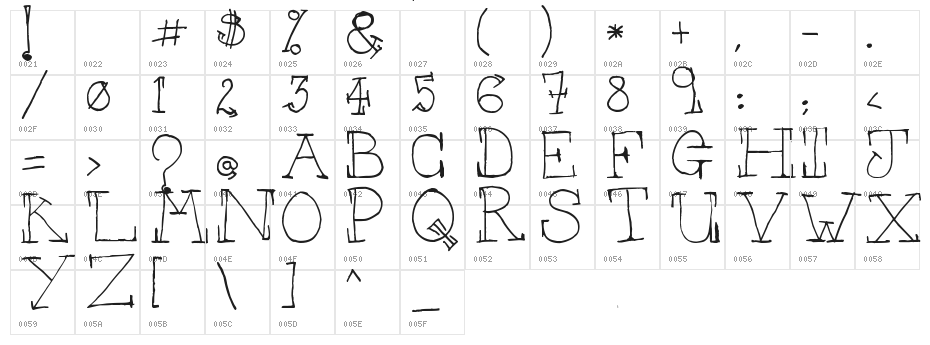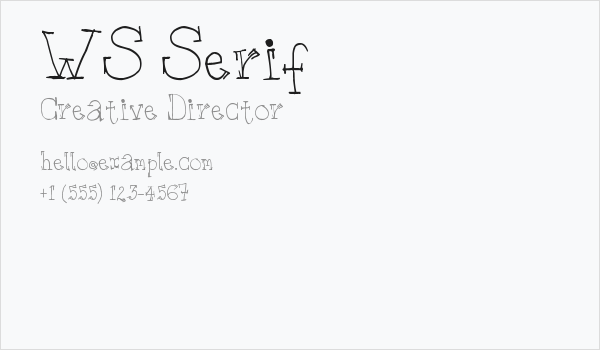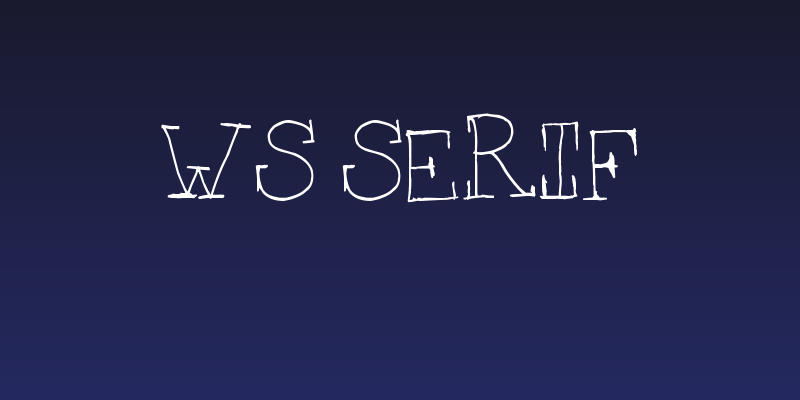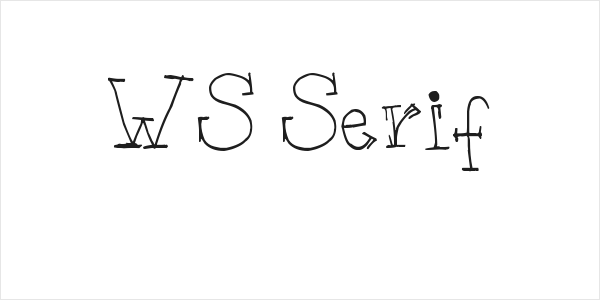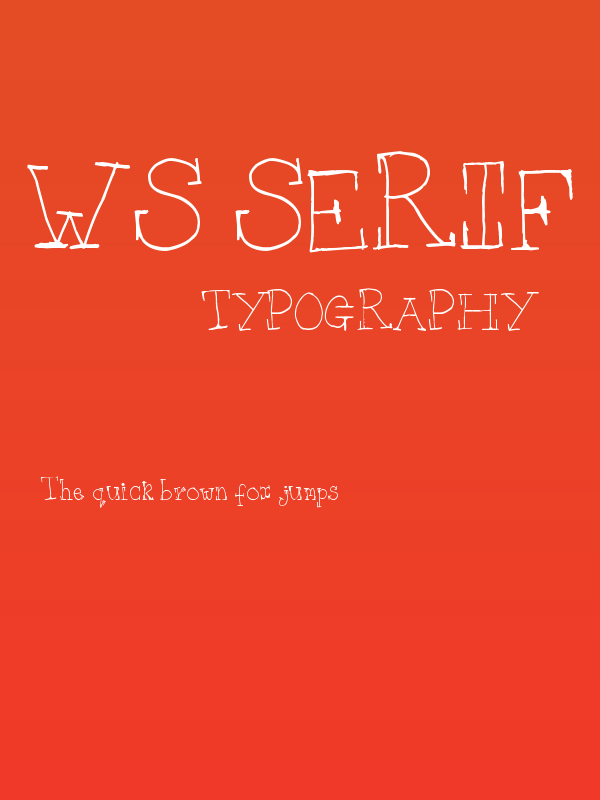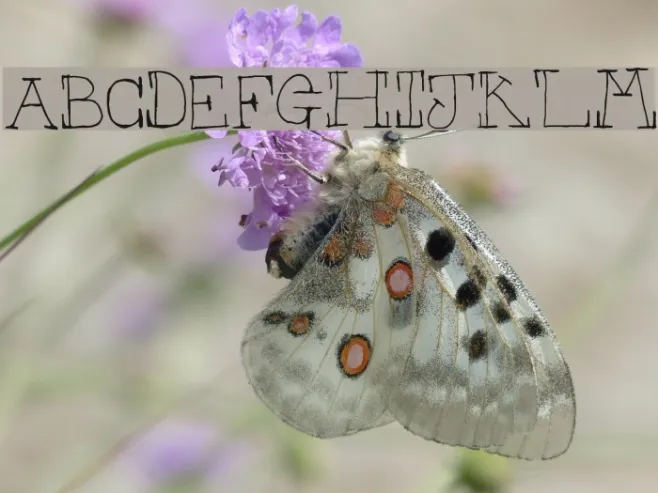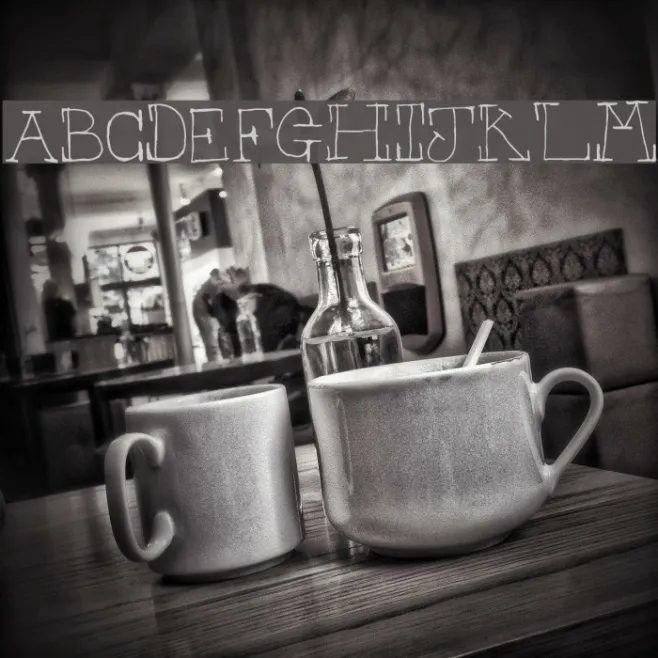
WS Serif Font
WS Serif Description
This font features a whimsical and playful design, characterized by its uneven strokes and quirky, hand-drawn appearance. The letters have a distinct, irregular shape that gives them a unique personality, making them stand out in any design. The uppercase and lowercase letters maintain a consistent style, with exaggerated serifs and varying line thicknesses that add to the font's charm. The numbers and special characters follow the same playful aesthetic, ensuring a cohesive look across all text elements. This font is perfect for projects that require a touch of creativity and individuality.
| Use Case | Headlines, Logos, Artistic projects |
| Proposed Projects | Ideal for children's books, creative posters, playful branding, and artistic invitations. |